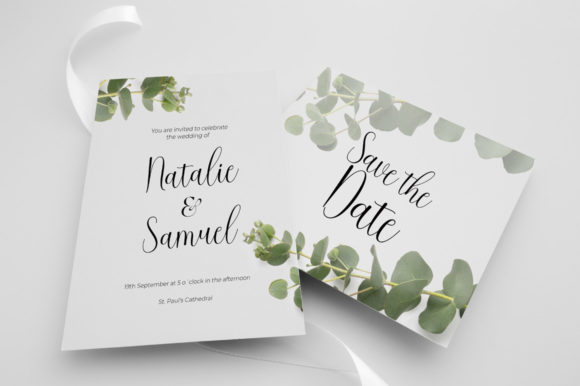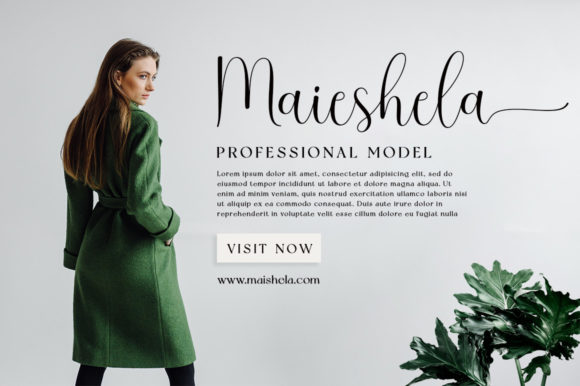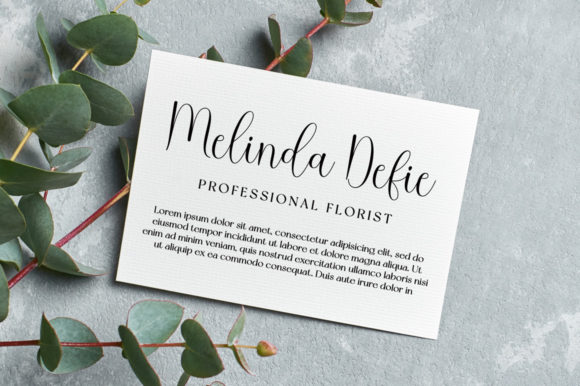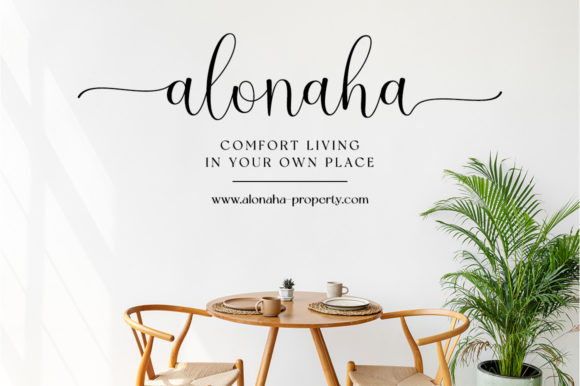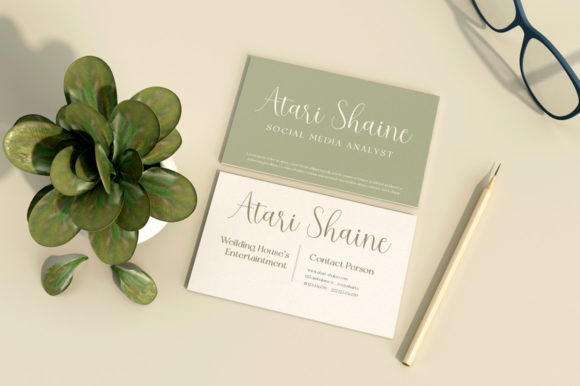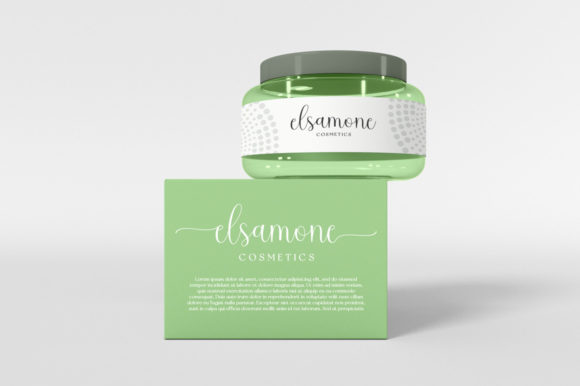
Evelyn Font: Elevate Your Designs with Elegance and Sophistication
In the world of design, typography plays a crucial role in conveying the tone and aesthetic of a project. For designers and crafters seeking a font that exudes elegance and sophistication, Evelyn Font is an exceptional choice. This free-flowing script font is meticulously crafted for a variety of applications, including packaging products, invitation cards, flyers, mockups, event posters, and more.
Unleash Your Creativity with Evelyn Font
Evelyn Font boasts a beautiful and balanced character that seamlessly integrates with a wide range of design pools. Its fluid strokes and harmonious letterforms make it an ideal choice for designers aiming to add a touch of refinement to their projects. Whether you’re working on a luxury brand’s packaging, a wedding invitation, or a promotional poster, Evelyn Font is sure to elevate your design to new heights.
Key Features of Evelyn Font
- Free-Flowing Script Font: Evelyn Font features a smooth, connected script style that adds a touch of elegance to any design.
- PUA Encoded: This font is PUA (Private Use Area) encoded, allowing easy access to all glyphs and swashes. This means you can effortlessly incorporate the font’s intricate details and flourishes into your designs.
- High-Quality Vibes: With Evelyn Font, you can achieve high-end results that rival professional design studios.
- Versatile: This font is suitable for a wide range of applications, from packaging and invitations to flyers, mockups, and event posters.
Evelyn Font offers numerous benefits for designers and crafters, including:
- Time-Saving: With its PUA encoding, you can quickly access and incorporate the font’s various glyphs and swashes, streamlining your design process.
- Consistency: Evelyn Font’s balanced character ensures consistency throughout your design, resulting in a cohesive and polished look.
- Customization: The font’s flexibility allows you to experiment with different design elements, ensuring your project stands out from the crowd.
Tips for Using Evelyn Font Effectively
To get the most out of Evelyn Font, consider the following tips:
- Pair with Complementary Fonts: Combine Evelyn Font with complementary fonts to create visual interest and hierarchy in your design.
- Experiment with Swashes: Take advantage of the font’s PUA encoding to incorporate swashes and glyphs that add a personal touch to your design.
- Adjust Font Size and Color: Play with font sizes and colors to create a visually appealing design that captures your audience’s attention.
Evelyn Font is a stunning script font that offers designers and crafters a versatile and elegant solution for their design needs. With its beautiful character, PUA encoding, and high-quality vibes, this font is perfect for a wide range of applications. Whether you’re a seasoned designer or a crafty DIY enthusiast, Evelyn Font is sure to become a go-to choice for elevating your designs to new heights.